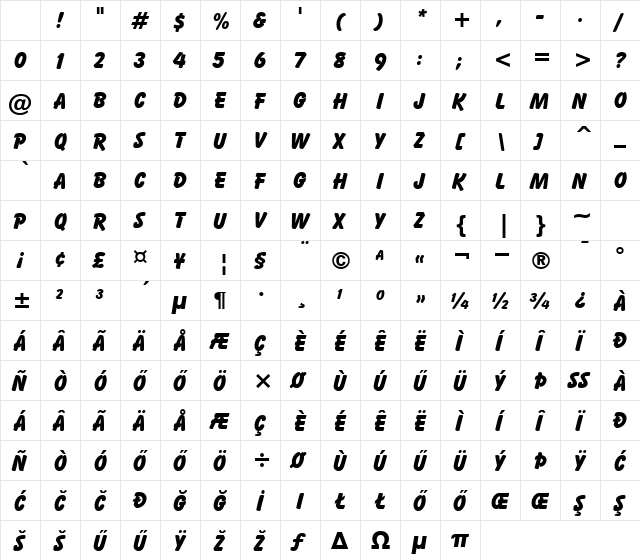
Complete H_Balloon XBd BT Regular glyph index. Displaying only characters natively supported by H_Balloon XBd BT Regular font.
H_Balloon XBd BT is a composed and adaptable typeface that performs quietly and consistently across a wide range of design contexts. Its bold stroke weight gives it real presence on the page.